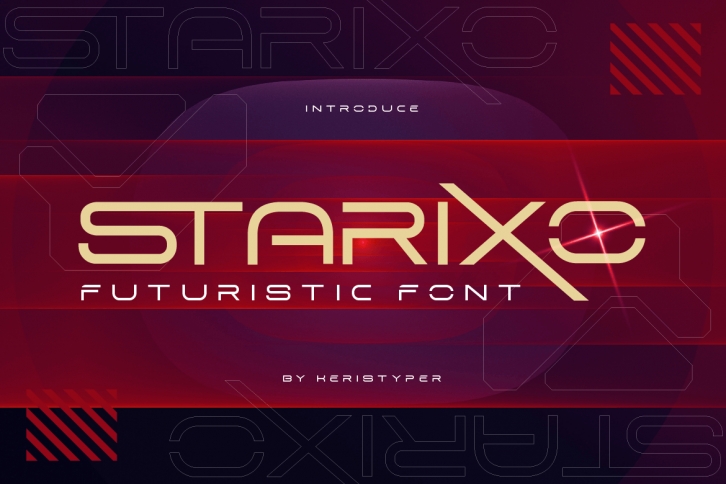
Starixo is a modern and authentic sans serif font. This font is good for logo design, Social media, Movie Titles, Books Titles, short text, and even long text letters, and good for your secondary text font with sans or serif.